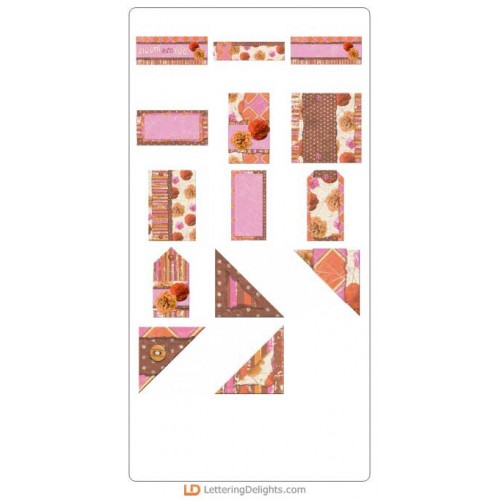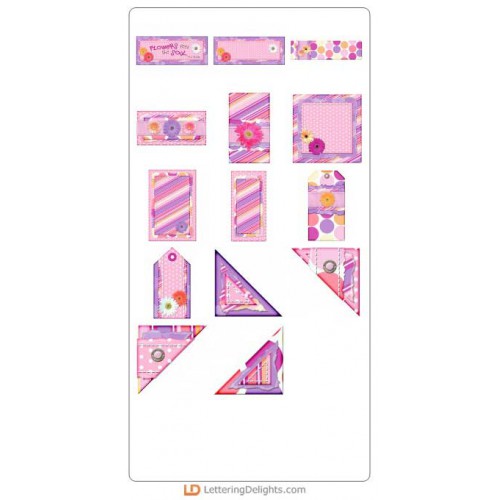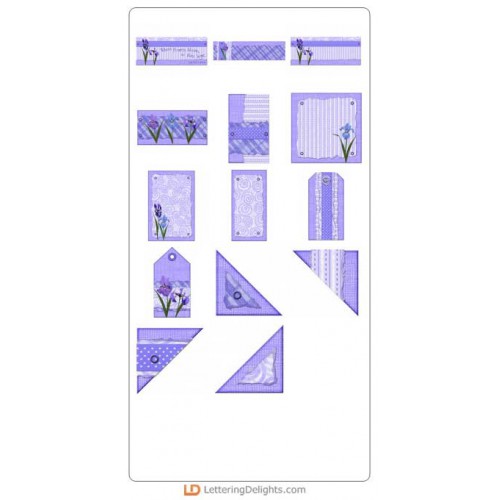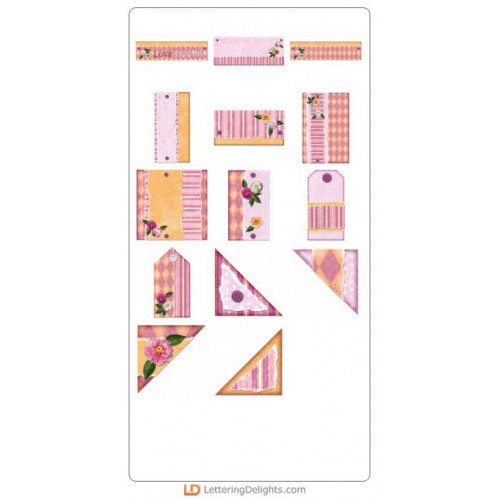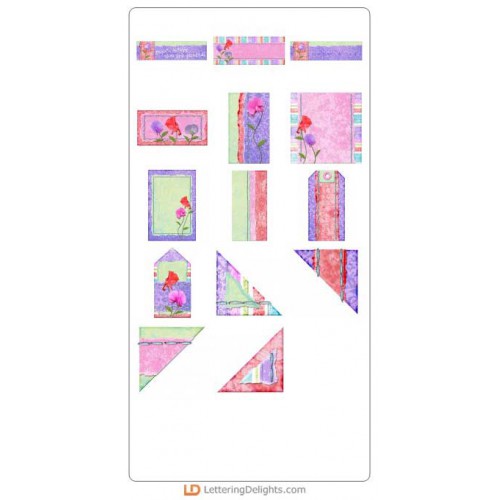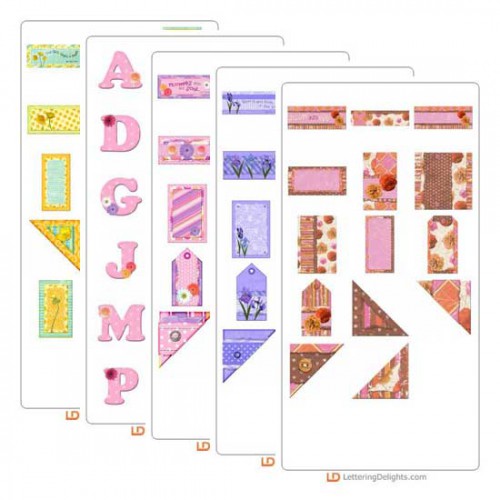
Bouquet 2 Bundle
This bundle includes all the important elements for floral creativity, featuring several downloadable alphabets and journaling sets. They are great for incorporating into your wedding, summer, and garden-themed paper crafting.